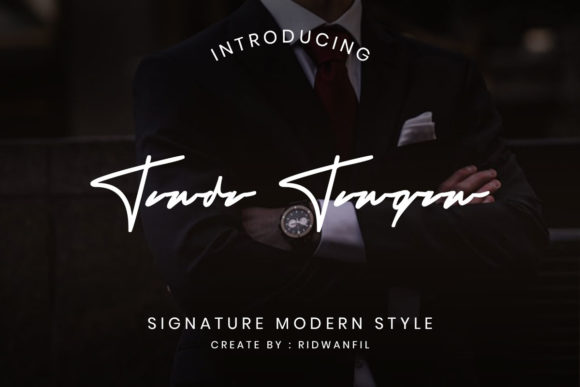
Dive into the captivating world of Tanda Tangan, a script font that will ignite your creativity and leave an unforgettable impression on your designs. This exquisite font, meticulously crafted by Ridwanfil, is a true masterpiece that embodies elegance, authenticity, and timeless appeal.
With its sweeping strokes, delicate curves, and graceful lines, Tanda Tangan effortlessly evokes a sense of sophistication and artistry. Its script style exudes a personal touch, making it ideal for projects that demand a human-centric approach. Whether you're designing wedding invitations, branding materials, or social media graphics, Tanda Tangan will elevate your designs to new heights of beauty and distinction.
Tanda Tangan's versatility knows no bounds. Its graceful lines lend themselves effortlessly to a wide range of design applications. From elegant logos and stylish branding to eye-catching posters and mesmerizing social media posts, Tanda Tangan seamlessly adapts to any project, adding a touch of magic and intrigue.
Let your imagination soar as you explore the boundless possibilities of Tanda Tangan. Its captivating charm will transform your designs into masterpieces, leaving a lasting impression on your audience. Embrace the beauty of Tanda Tangan and unlock a world of creative possibilities.